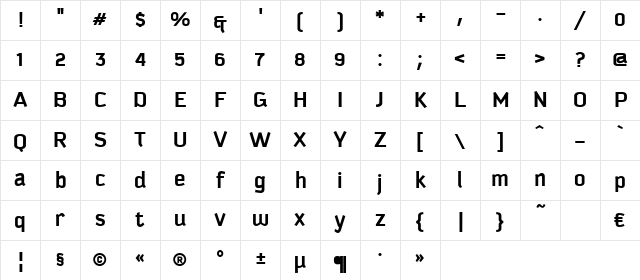
Complete Kautiva Cyrillic Bold Regular glyph index. Displaying only characters natively supported by Kautiva Cyrillic Bold Regular font.
Kautiva Cyrillic Bold is a composed and adaptable typeface that performs quietly and consistently across a wide range of design contexts. Its bold stroke weight gives it real presence on the page.
Who designed the Kautiva Cyrillic Bold Regular font?